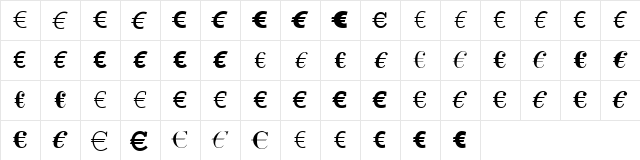
Linotype EuroFont A to F Regular
Design Context for Linotype EuroFont A to F Typeface
Linotype EuroFont A to F offers clean, dependable letterforms without strong stylistic allegiance, making it a practical choice for designers who need flexibility.